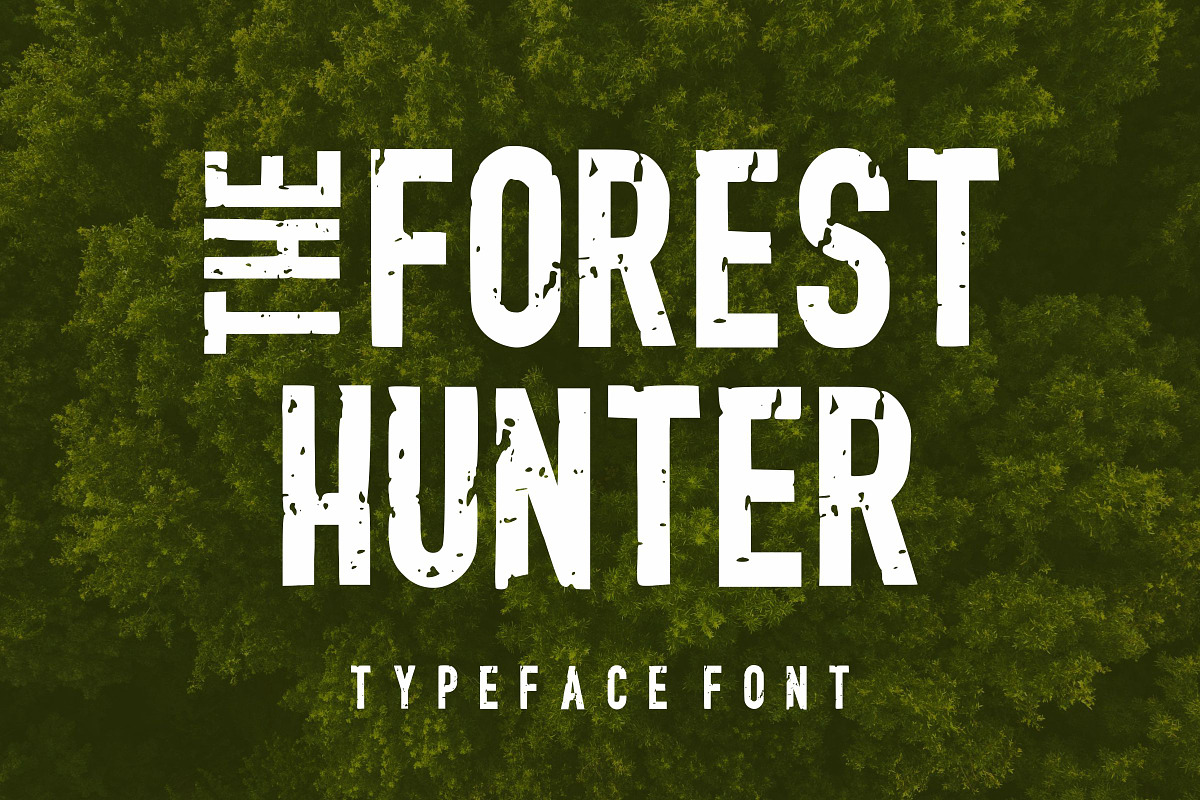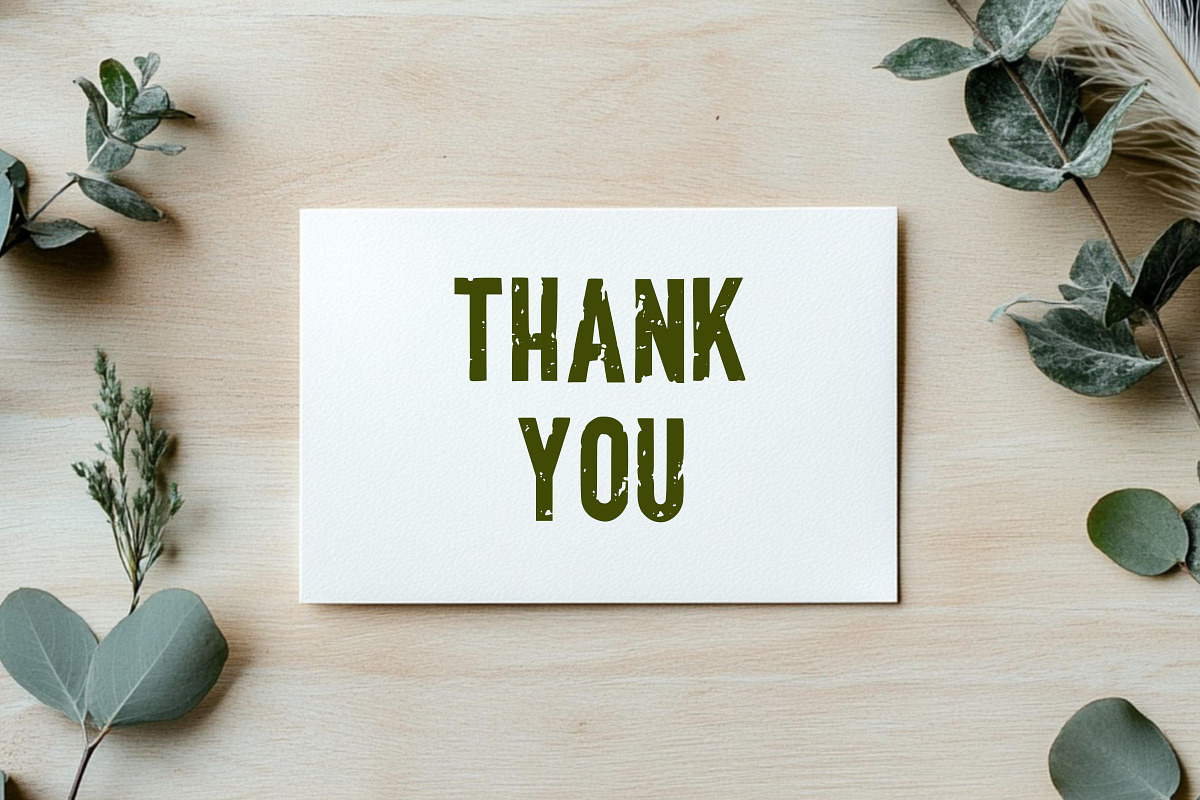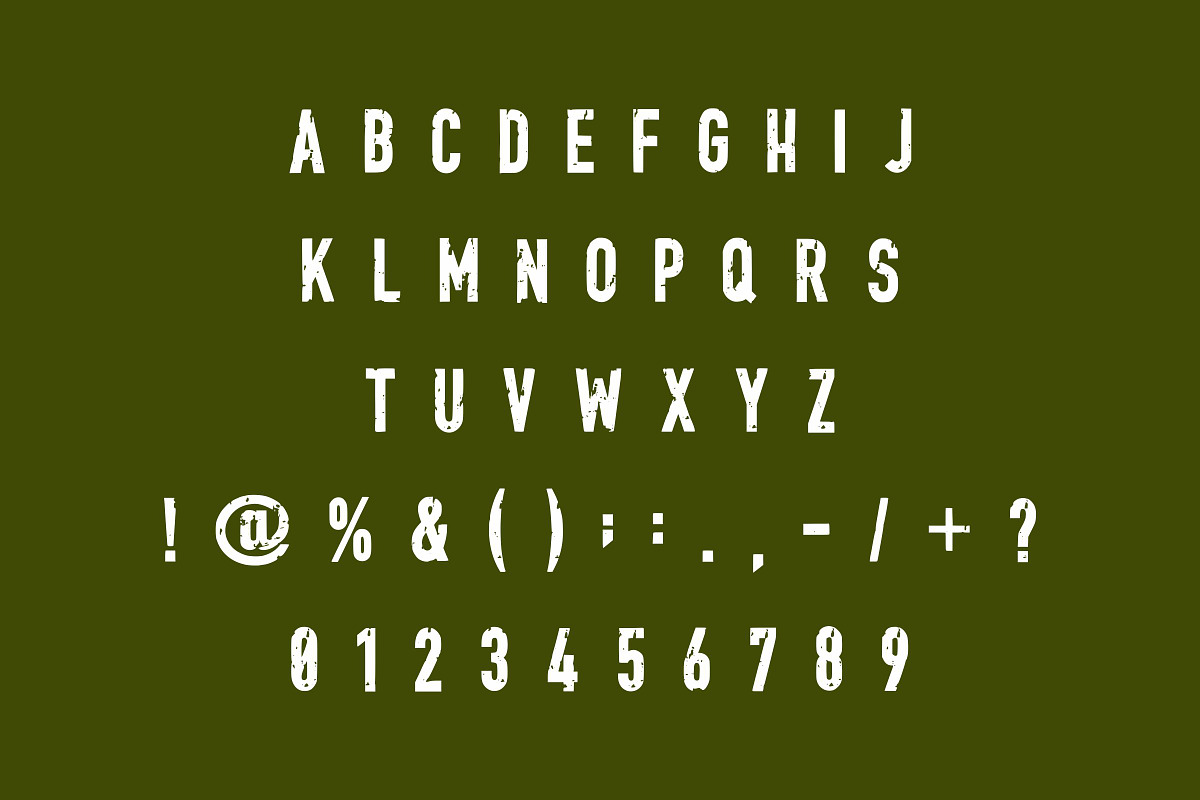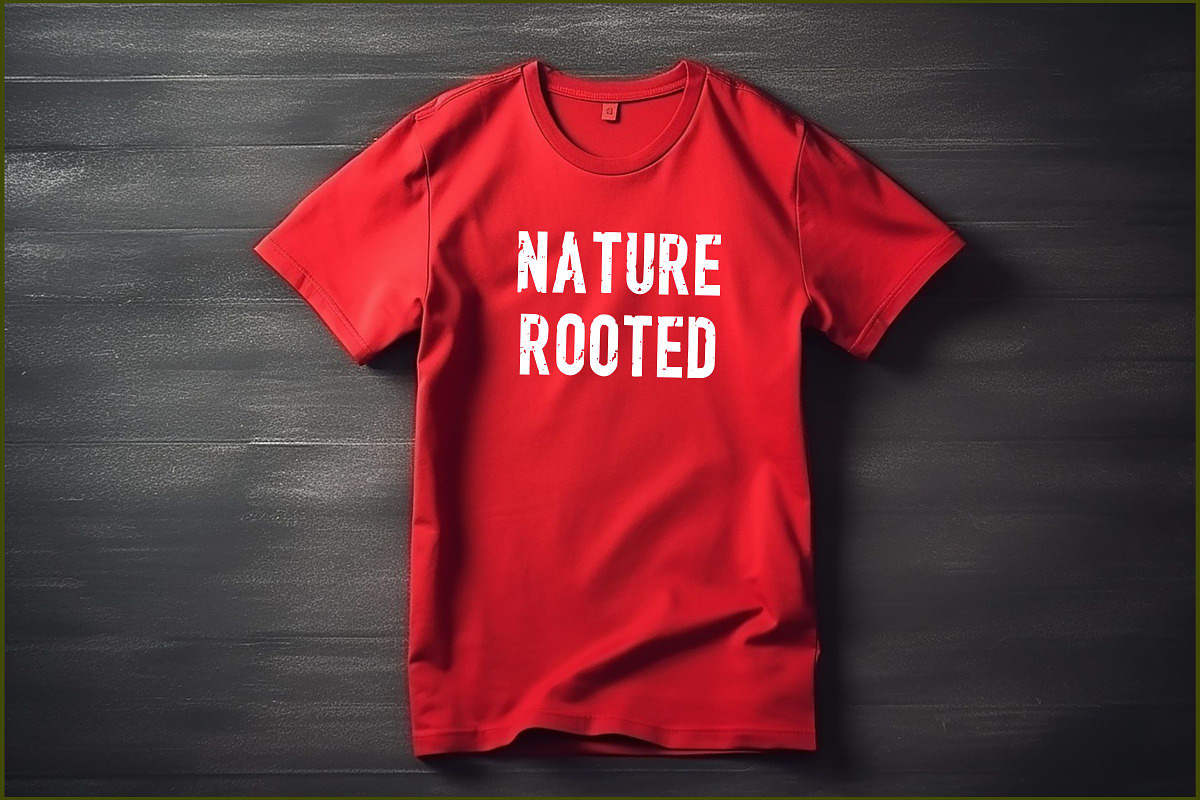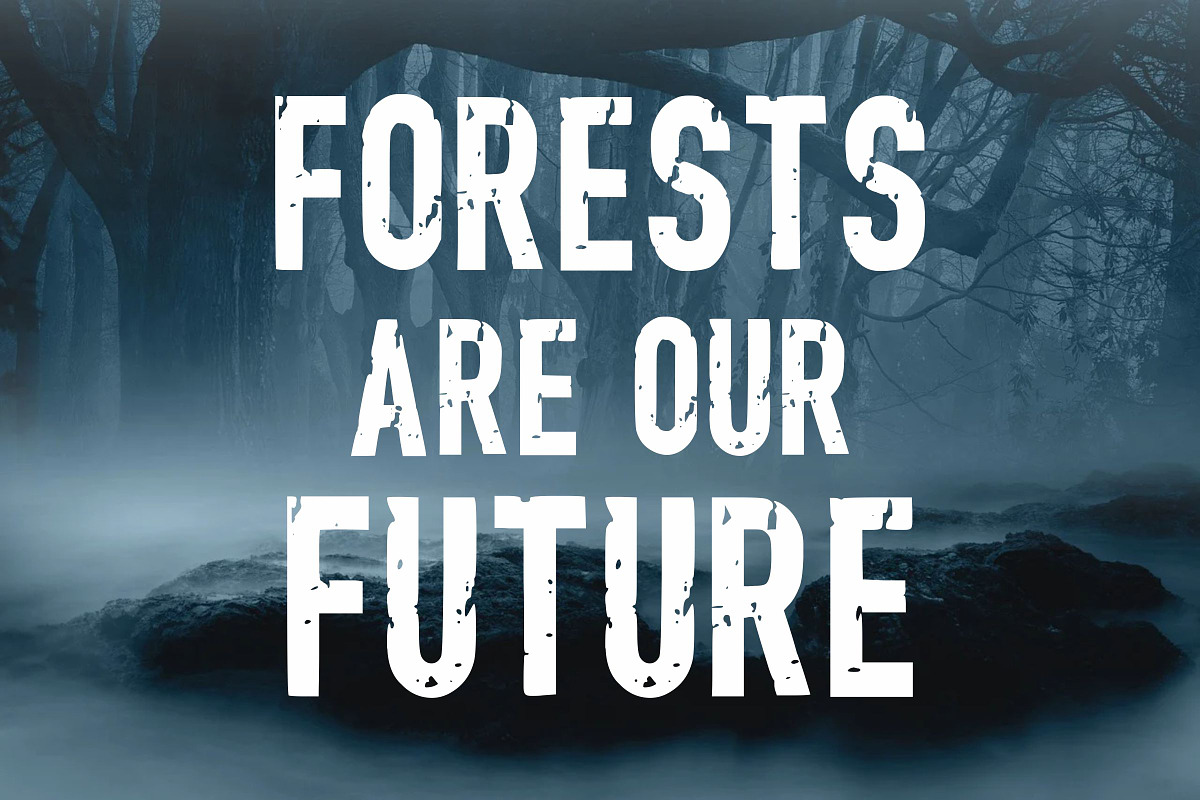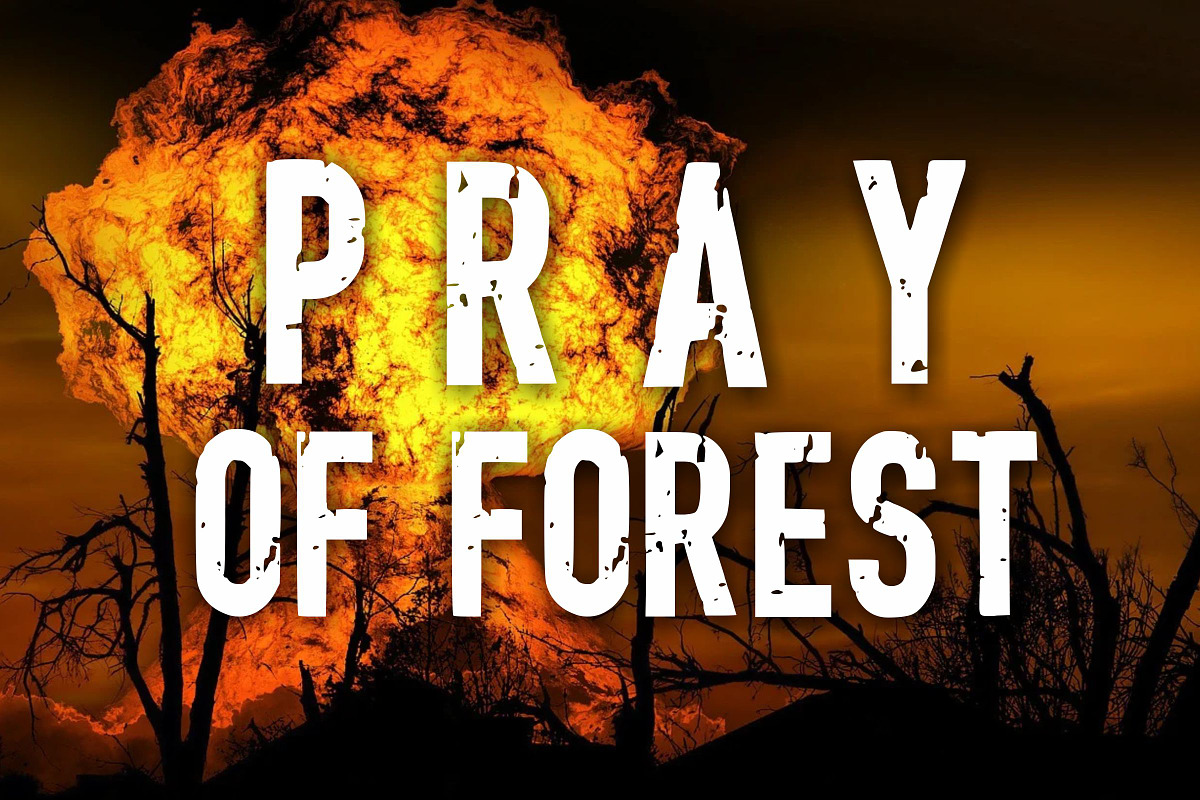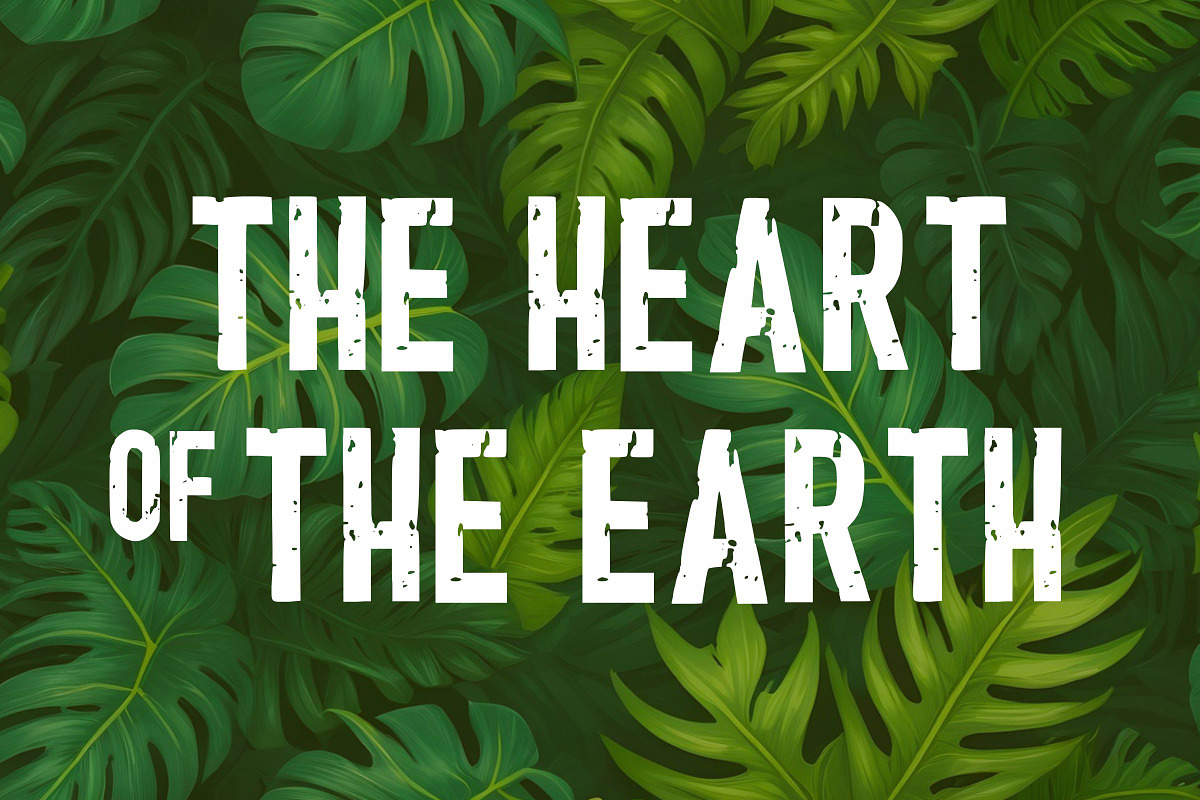
The Forest Hunter
The Forest Hunter font is a bold, rugged display typeface that captures the raw essence of the great outdoors.
This The Forest Hunter typeface features a unique “stamped” or distressed texture, making it perfect for adventure-themed branding, hunting gear logos, and rustic event posters. The heavy, condensed structure of The Forest Hunter font commands attention, providing a vintage, military-inspired aesthetic that feels both powerful and authentic.
Whether used for t-shirt designs or outdoor signage, The Forest Hunter typeface delivers a masculine, weathered look that resonates with nature enthusiasts and explorers alike.